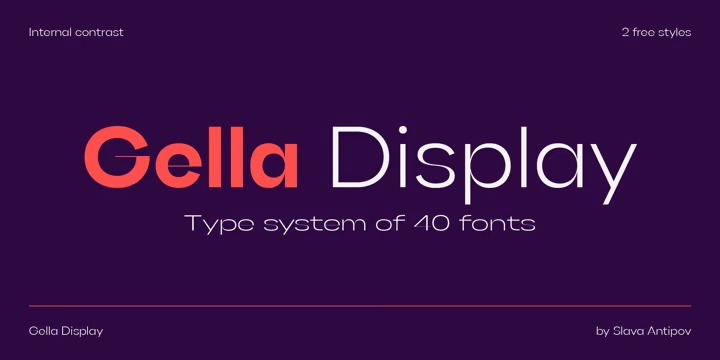
Gella Display Font
This  is a new sans serif font from designer Slava Antipov. It is a modern and display typeface. It has 10 weights and 4 widths, for a total of 40 styles.
This font family good for typing large amounts of text and for headlines, logos, posters, covers, spectacular presentations, and more. Gella Display would be great for branding, websites and other tasks.
The typeface supports a huge number of Latin and Cyrillic languages.
Gella Display has many OpenType features such as ligatures, alternate characters, fractional numbers, and more.